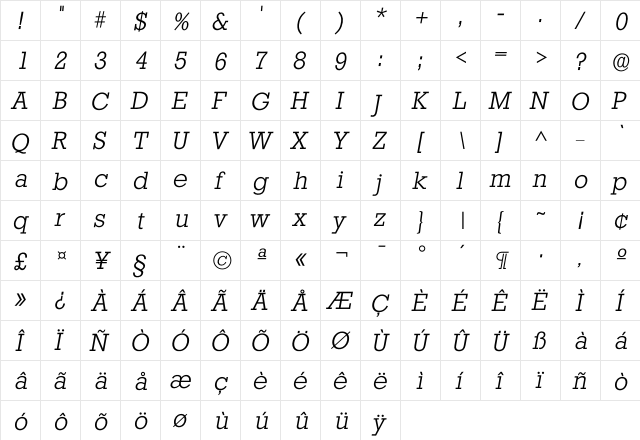
Istafford Light Font Preview
Istafford Light
Design Context for Istafford Typeface
Istafford takes a measured approach to typography — its balanced proportions and neutral character make it a reliable workhorse for both digital and print work. The delicate stroke weight brings airiness and refinement to layouts.